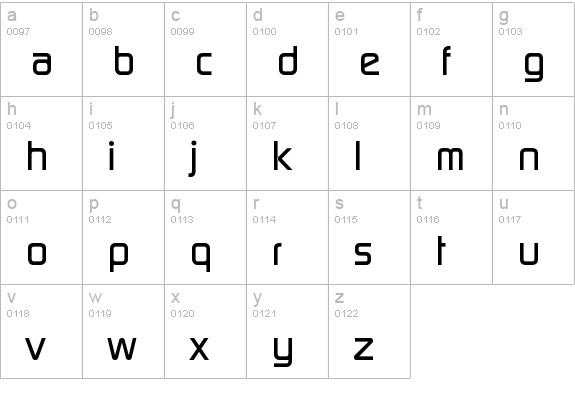
DicotMedium Regular Font Details
DicotMedium Regular is the standard, neutral variant in the DicotMedium typeface family \xE2\x80\x94 well suited to general body text, paragraphs, and standard typographic work.
DicotMedium Regular font is a versatile and stylish typeface that strikes the perfect balance between professionalism and creativity. With its clean lines and modern aesthetic, this font is ideal for a wide range of design projects, from branding to editorial design. What sets DicotMedium Regular apart is its unique combination of classic elegance and contemporary flair, making it a standout choice for designers looking to make a statement. Whether you're working on a sleek corporate identity or a hip new magazine layout, this font is sure to add a touch of sophistication to your work. And the best part? DicotMedium Regular font is available for free download at FontsMarket.com. So you can elevate your designs without breaking the bank. Don't miss out on this amazing opportunity to enhance your projects with this beautiful and versatile typeface. Download DicotMedium Regular today and take your designs to the next level!